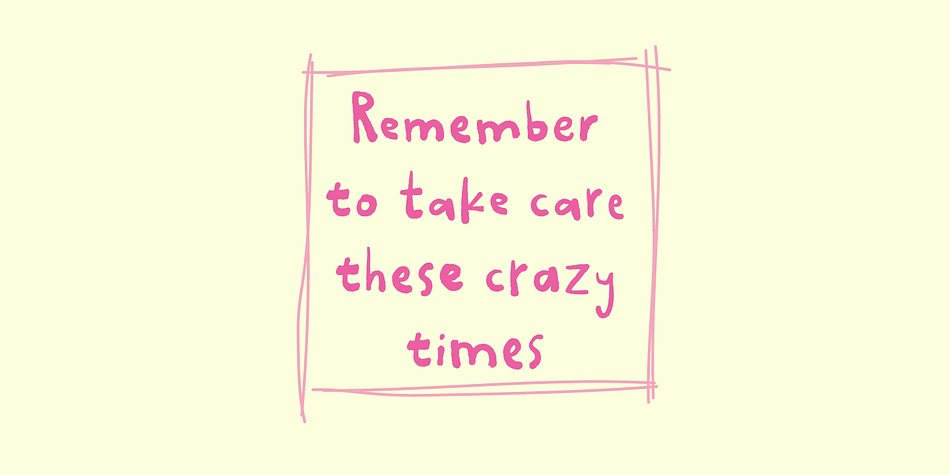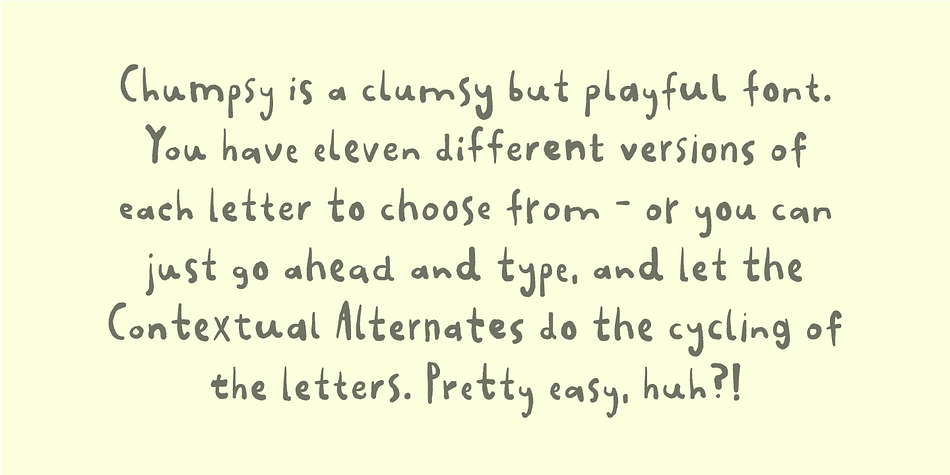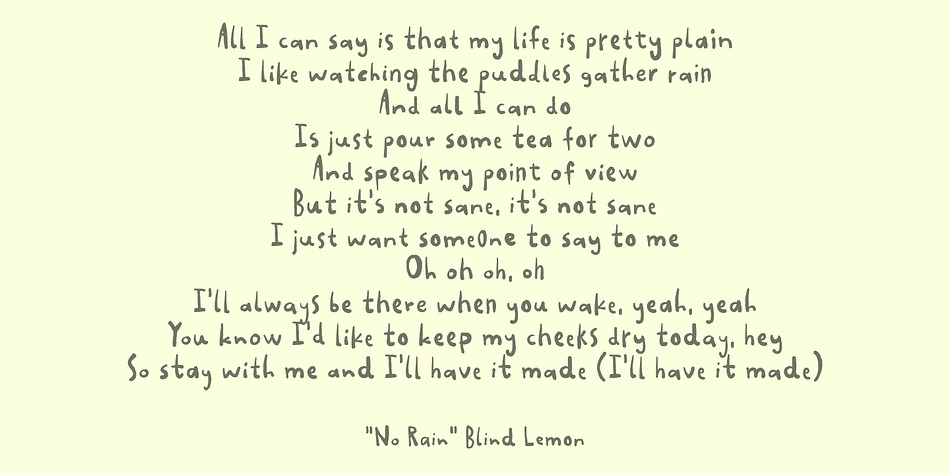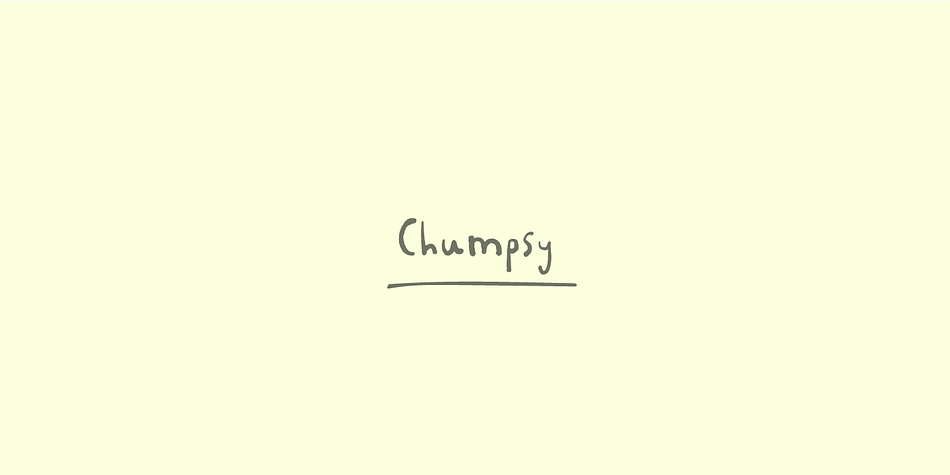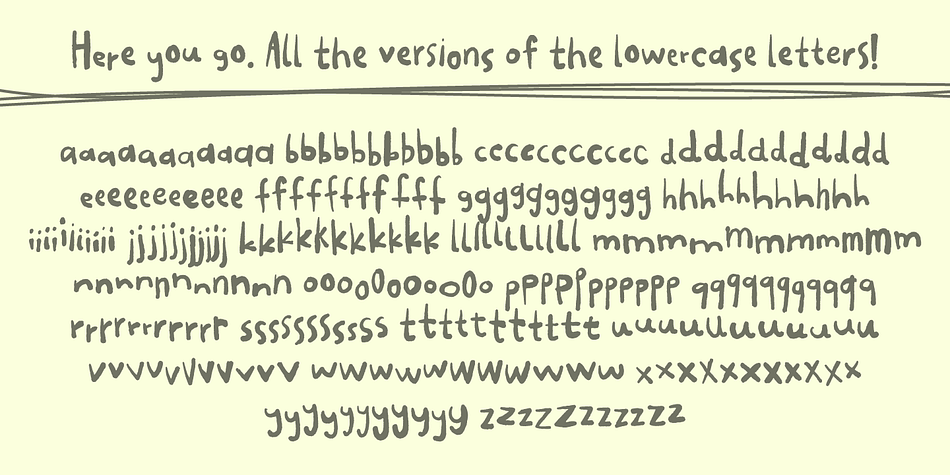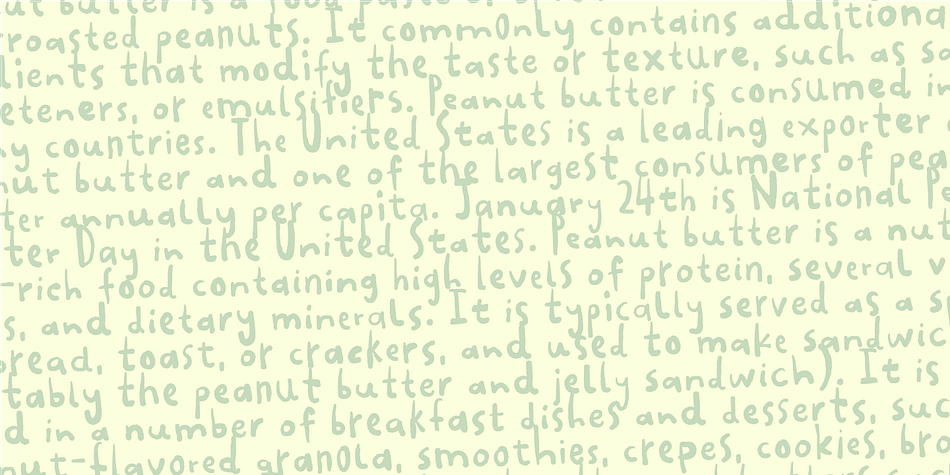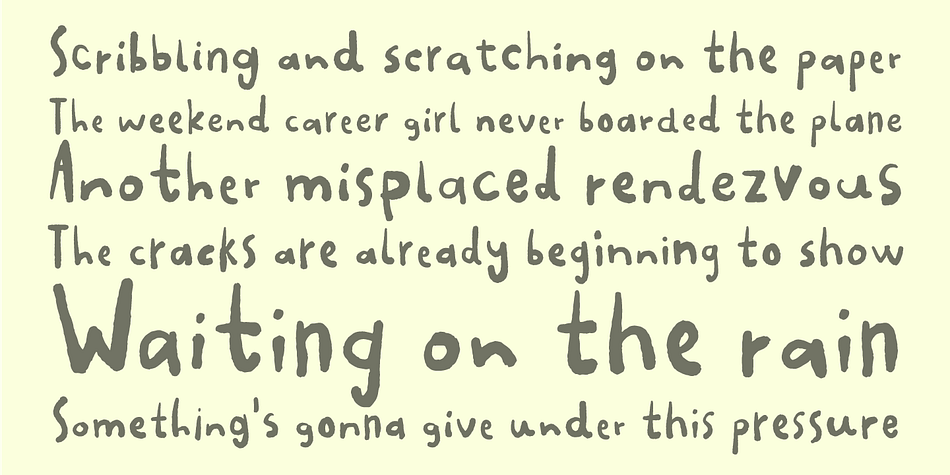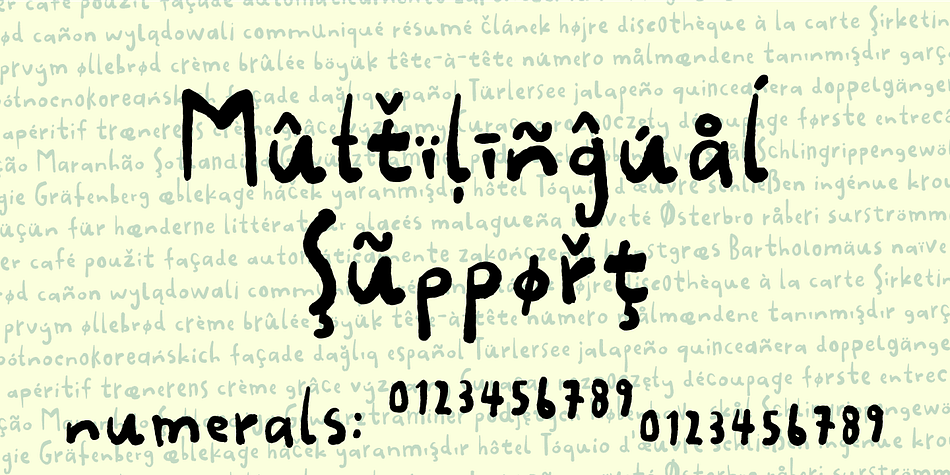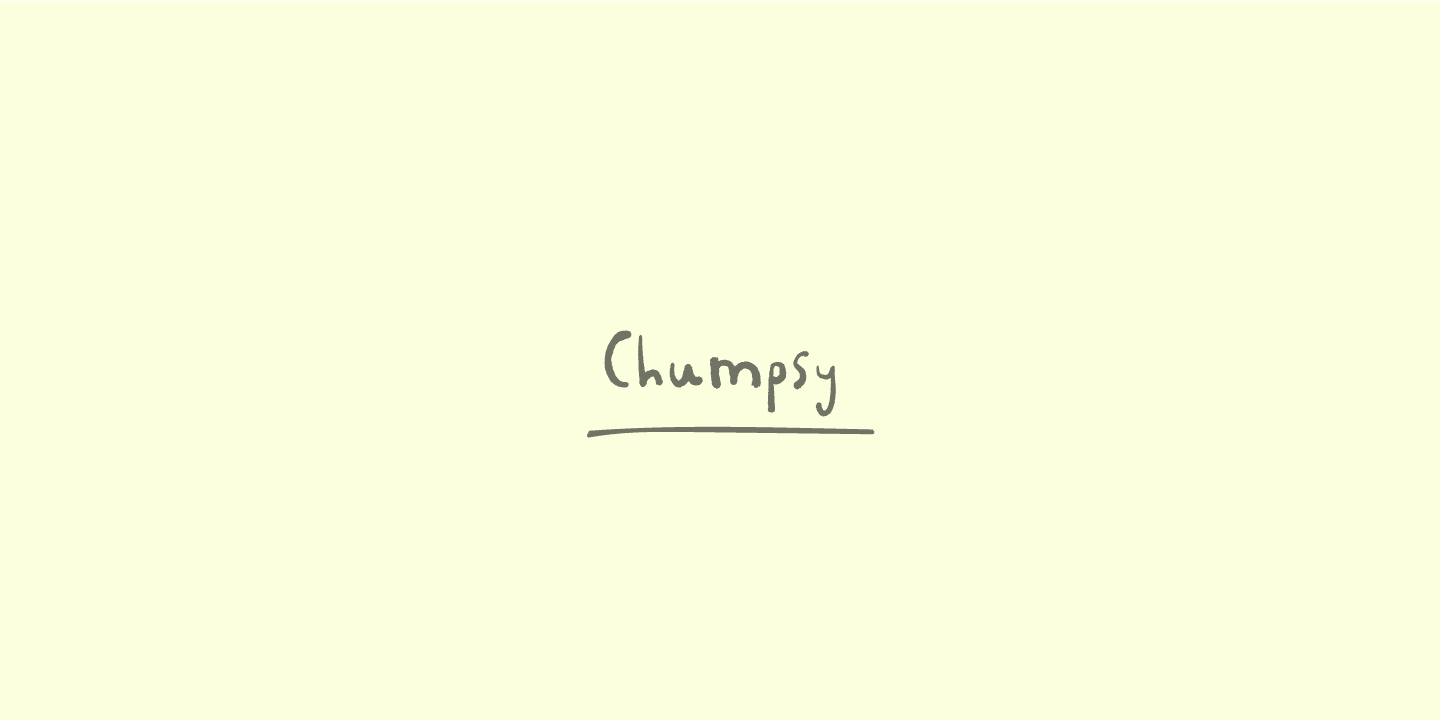
Chumpsy
Designed by Jakob Fischer, Chumpsy is a hand display and kids font family. This typeface has two styles and was published by Bogstav.
Chumpsy is clumsy - I did my best to make an awkward and bouncy hand-written font that was funky, but still legible. I added 11 slightly different versions of each lowercase letter, which automatically cycle as you type, or you can manually choose the one that suits you the best.